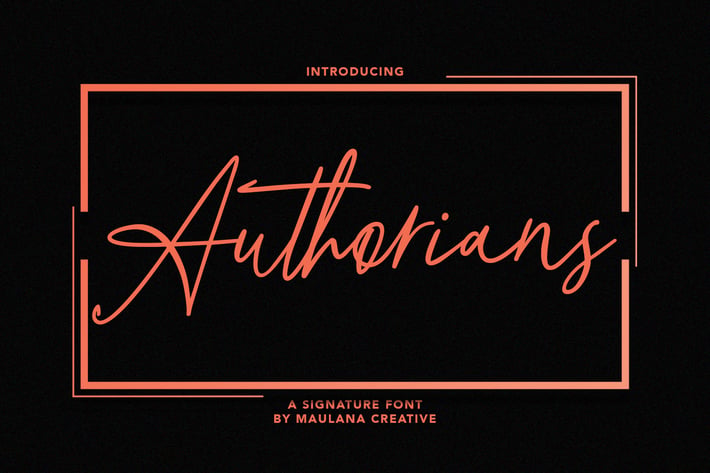
Authorians Signature Font
Give your designs an authentic handcrafted feel. "Authorians Signature Font" is perfectly suited to stationery, logos and much more.